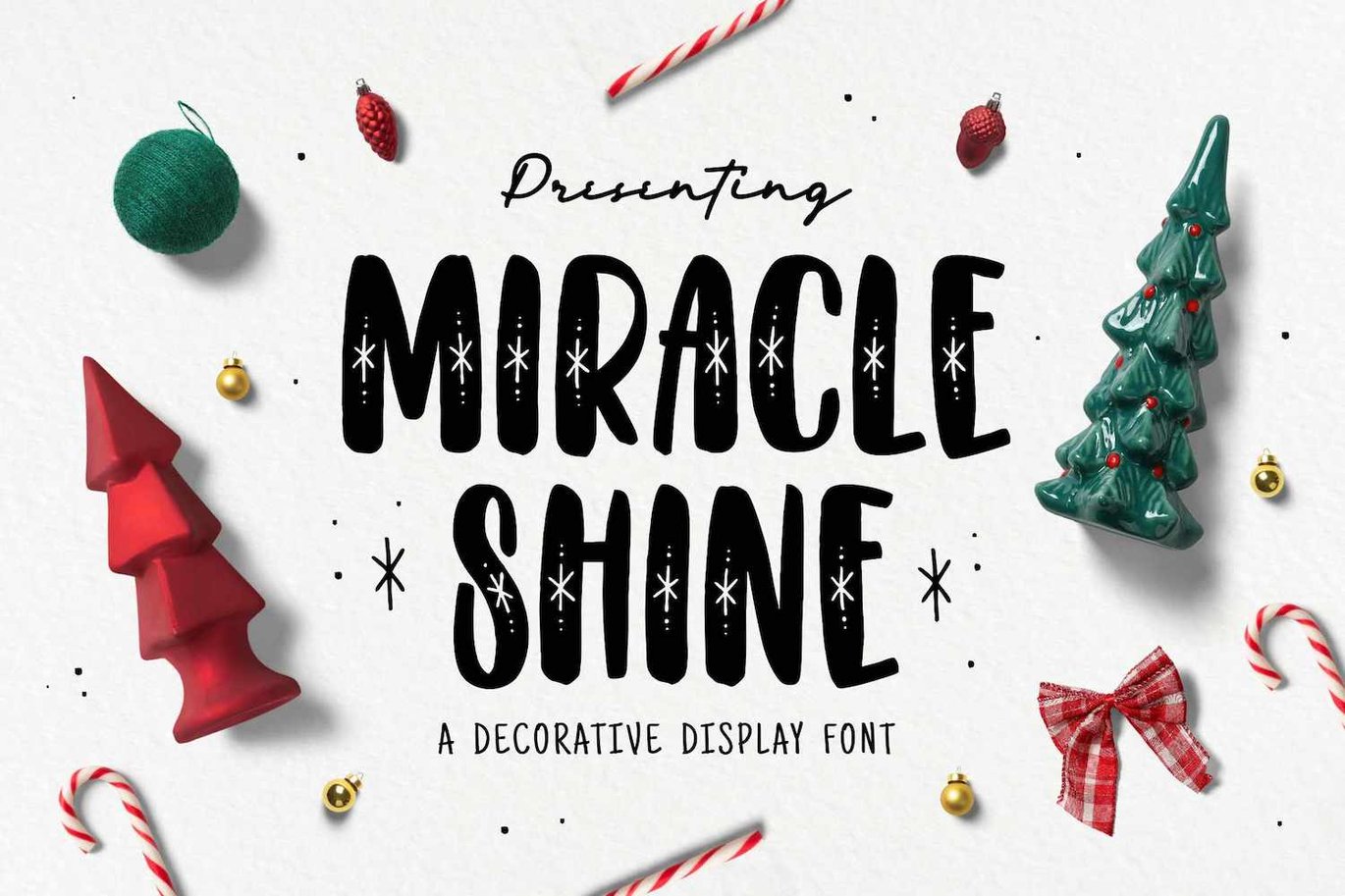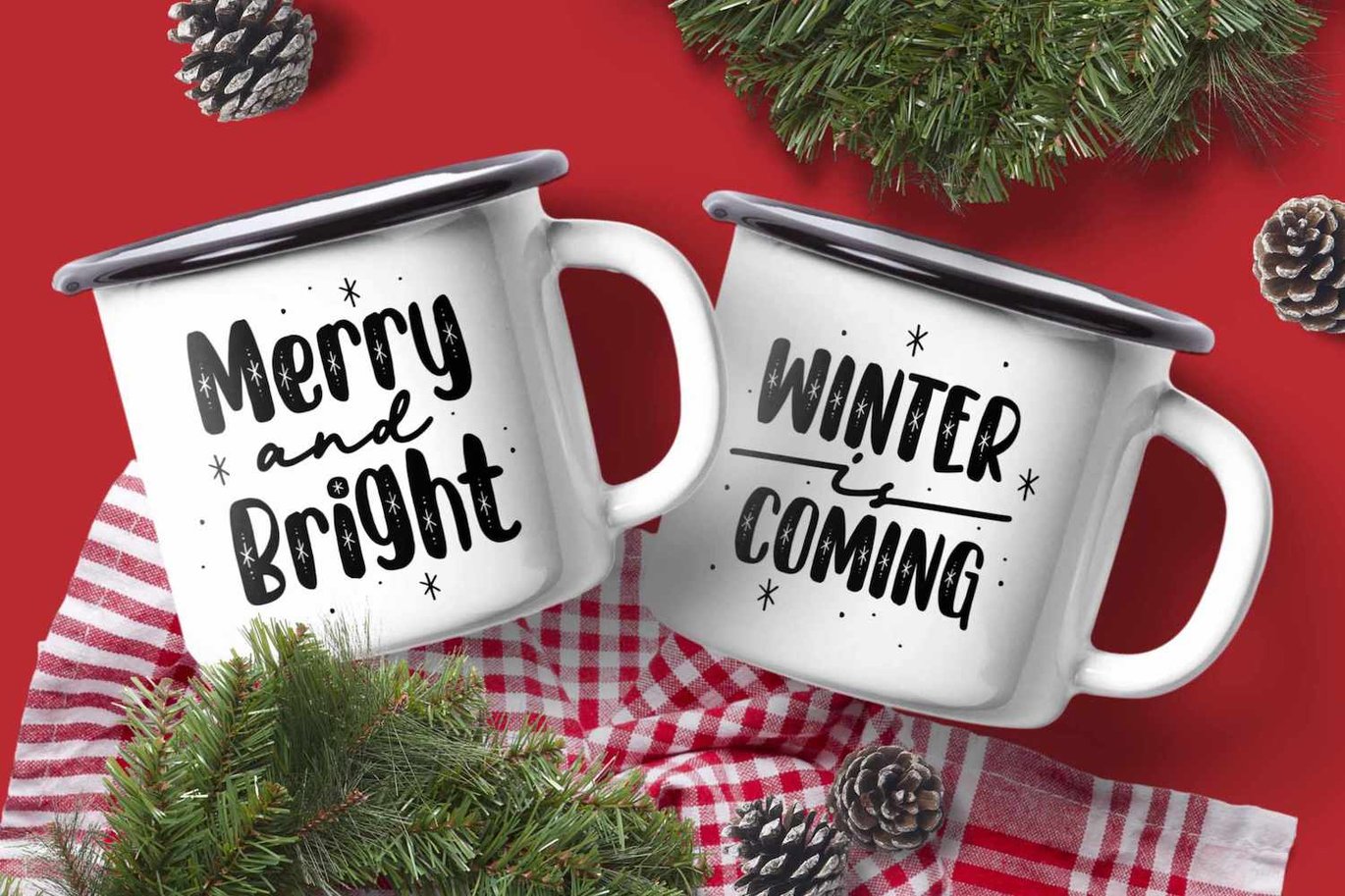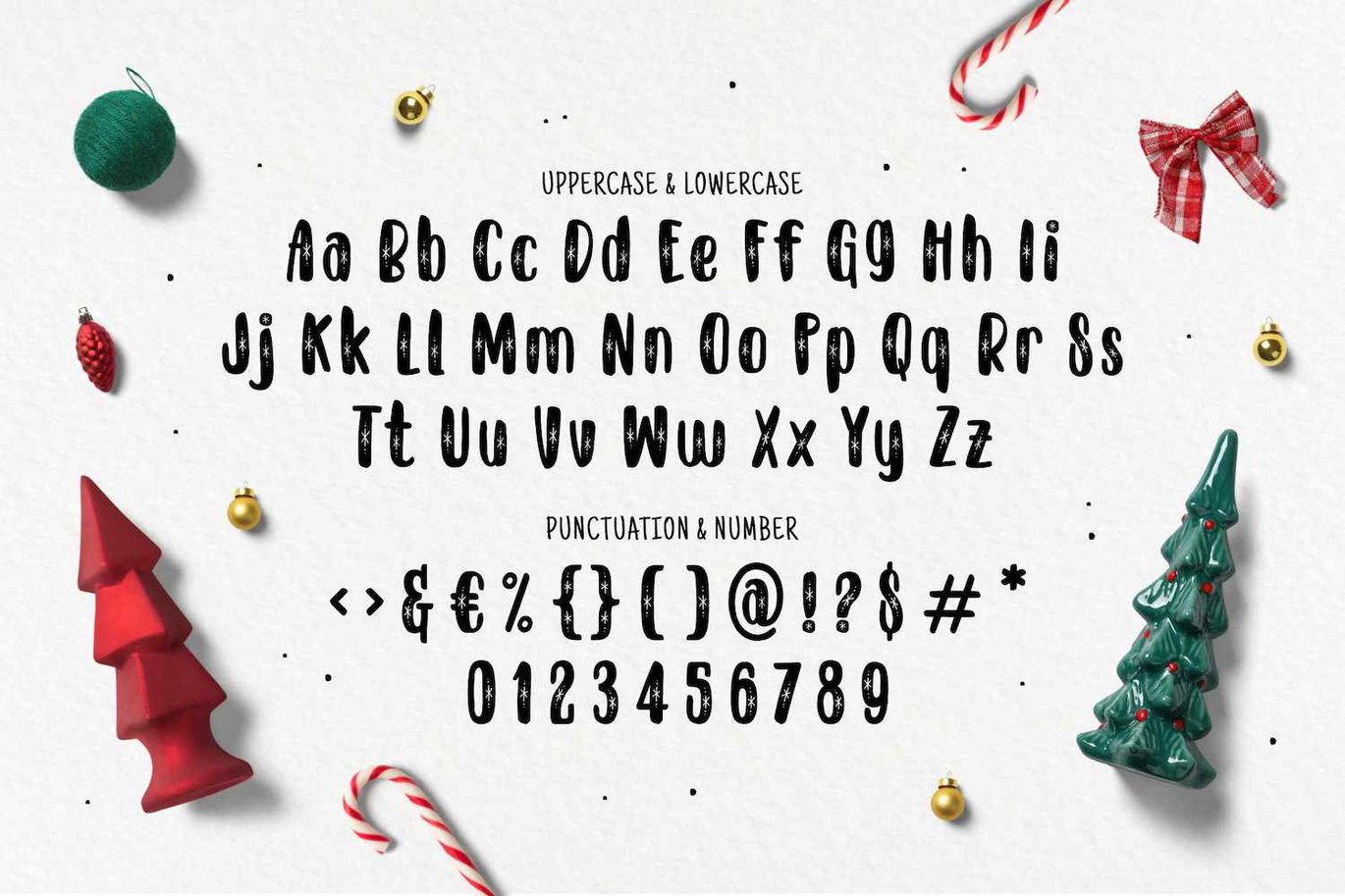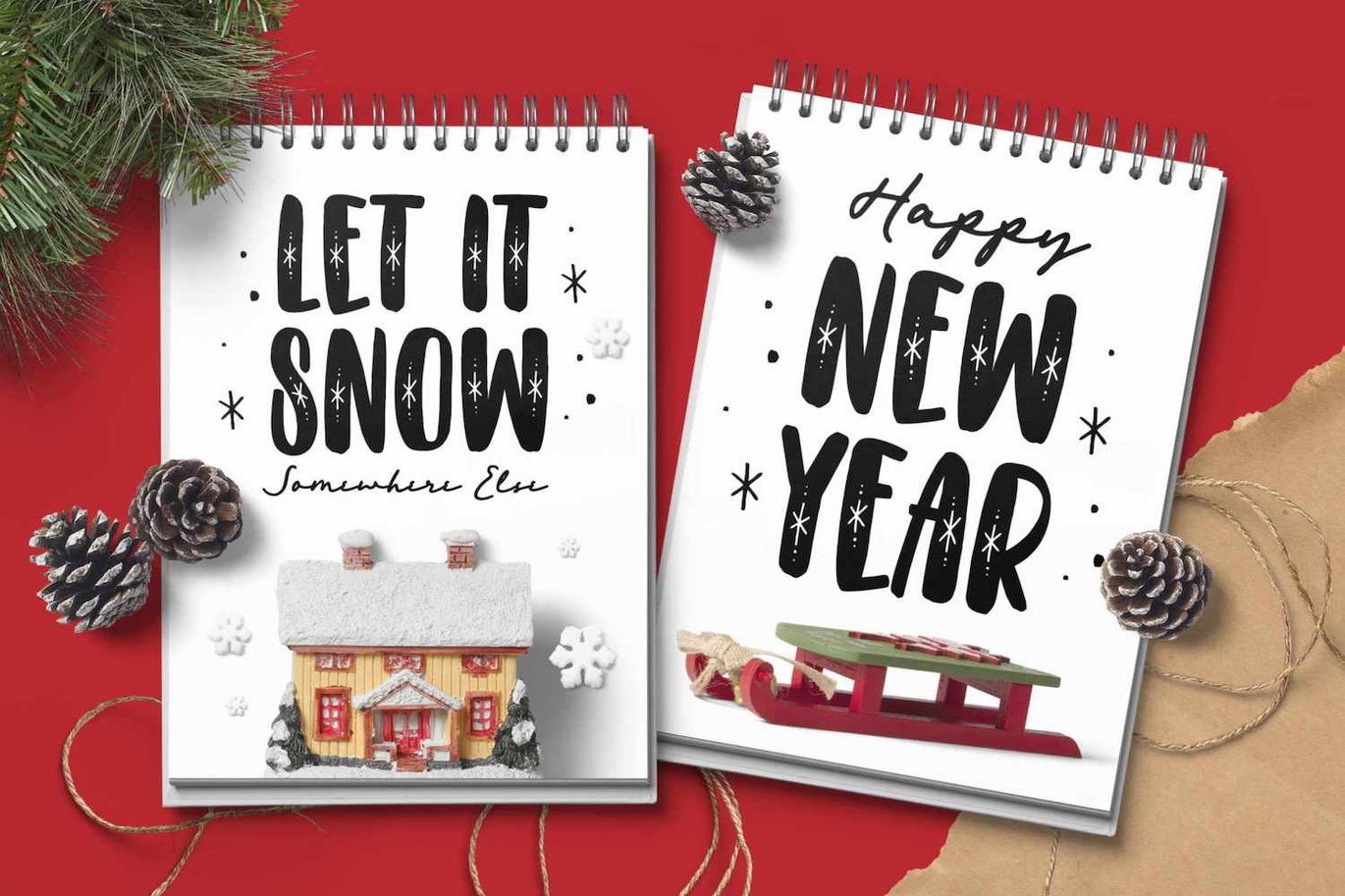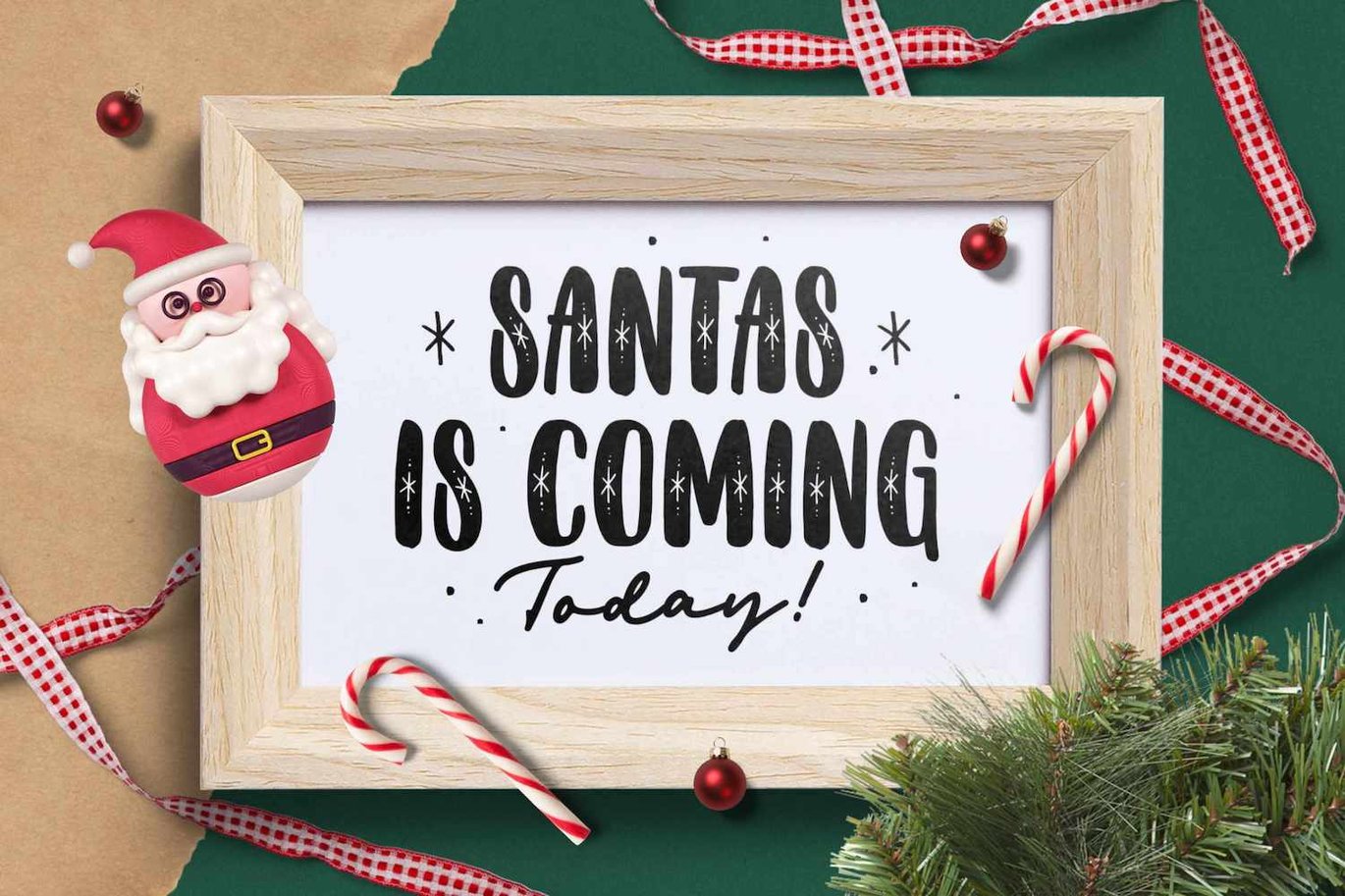
Miracle Shine – Christmas Font
Presenting Miracle Shine Font is suitable logo, branding, book, t-shirt, magazine, christmas season, greetings, headline and etc. Our fonts have Uppercase & Lowercase, Numeral & Punctuation, Multilingual support and Opentype Features. For Amazing designs you can mix with other fonts as a complement.